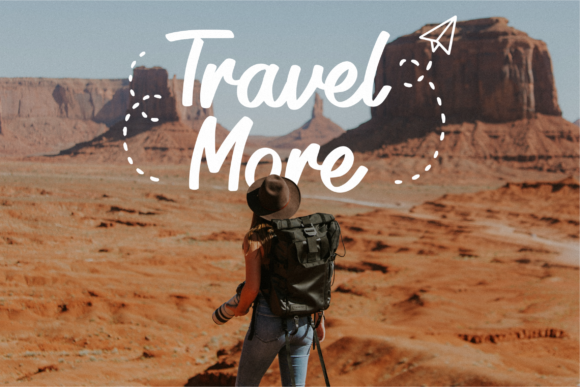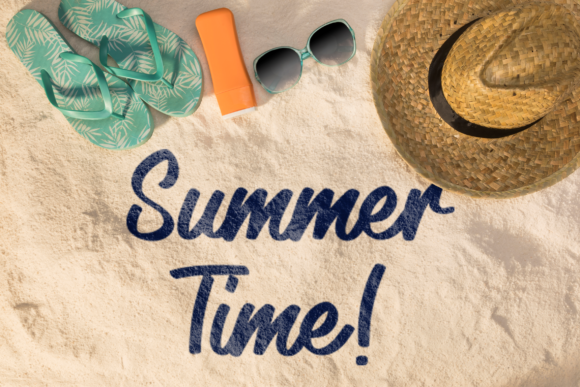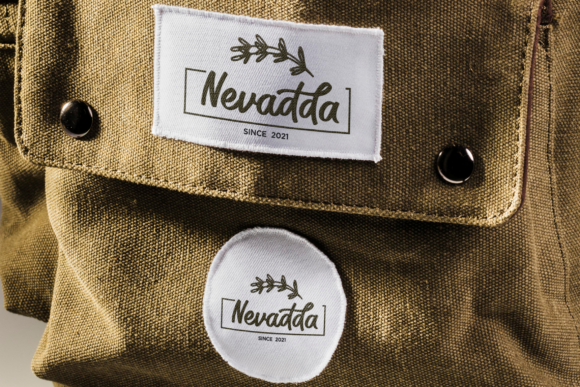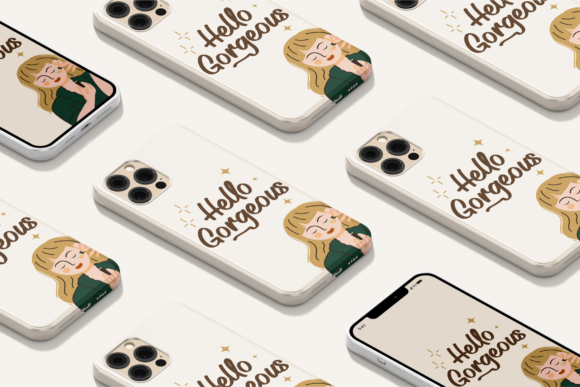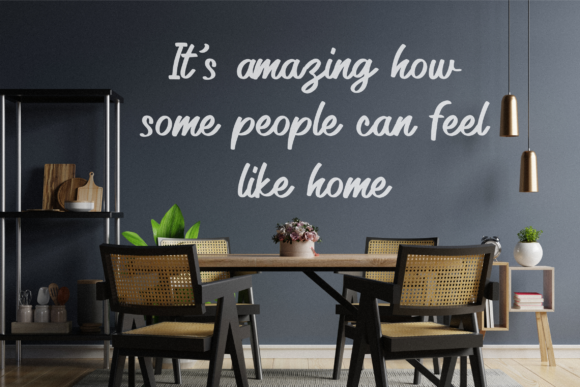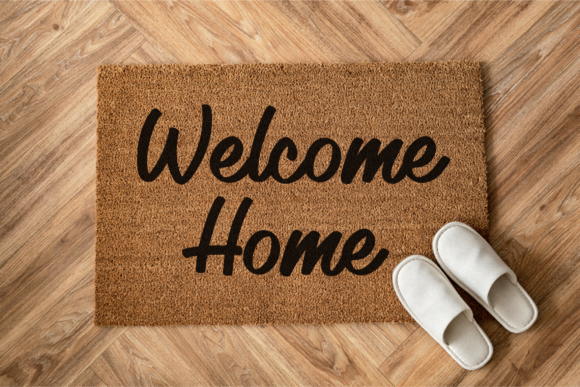
Introduction to Legendday Font
Remember that moment when a font brings your creative project to life? For many designers, it’s the difference between a good design and a great one. That’s exactly what the Legendday Font does. Its delicate, elegant, and flowing handwritten style makes it a perfect match for a wide range of designs.
With its beautiful and well-balanced characters, the Legendday Font is a valuable resource for any designer looking to add a touch of sophistication to their work. Whether you’re working on a high-quality logo, a creative graphic, or a beautiful typography piece, the Legendday Font is sure to impress.
Key Features of Legendday Font
- Supports a wide range of languages, including Latin, Cyrillic, and Greek alphabets
- Designed with a unique, modern aesthetic, perfect for branding and advertising materials
Honest Review: Legendday Font
As a designer, I’m always on the lookout for high-quality design resources to elevate my creative projects. The Legendday Font is one such resource that caught my eye recently. I decided to give it a try and here’s my honest review.
- What works well: ✨ The Legendday Font has a unique and quirky feel to it, making it perfect for projects that require a touch of whimsy. The font is highly customizable, allowing me to adjust the size, color, and even add effects to it.
⚠️ One limitation I noticed was that the font can be a bit too bold at times, which may not be suitable for all design projects. Additionally, the font family is quite limited, so it may not be the best choice for large-scale projects that require multiple font styles.
Overall, I’d say the Legendday Font is a great addition to any designer’s toolkit. While it has some limitations, its unique feel and high-quality design make it a great choice for creative projects. With a little creativity, it can help take your designs to the next level.
Legendday Font: A High-Quality Design Resource
Tips for Getting the Most Out of Legendday Font
To maximize the potential of Legendday Font, use it with a transparent background to create a clean and minimalist design. Experiment with different font sizes and colors to add depth and visual interest to your projects.
Common Use Cases for Legendday Font
Legendday Font is suitable for various design projects, including:
- Brand logos and identity
- Business cards and stationery